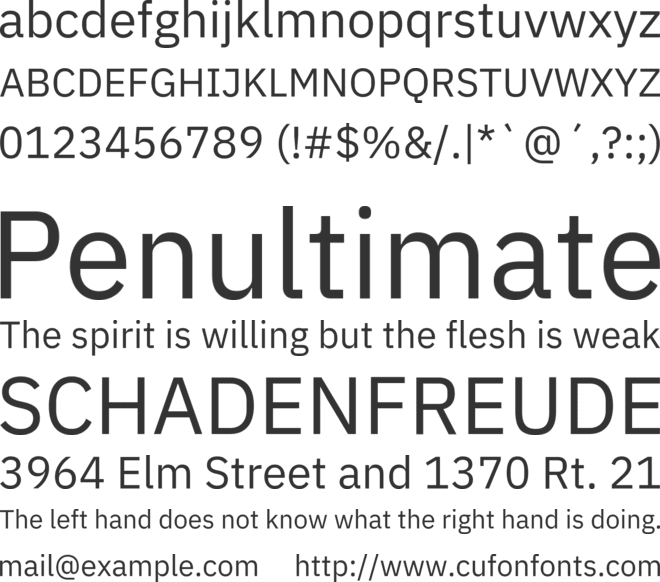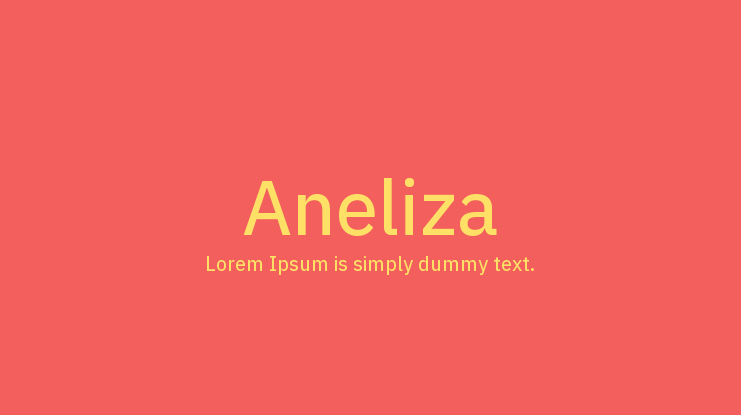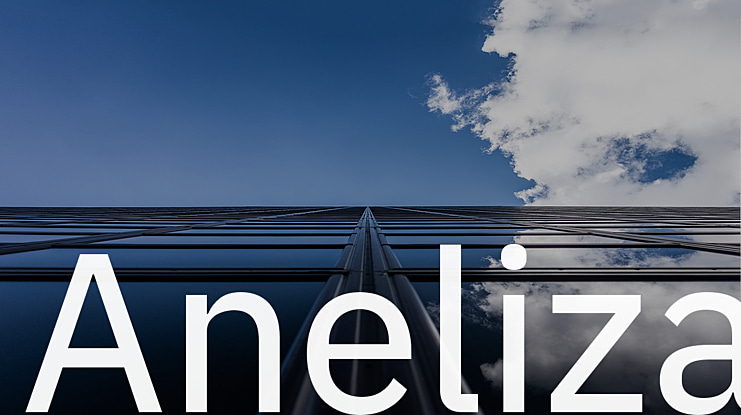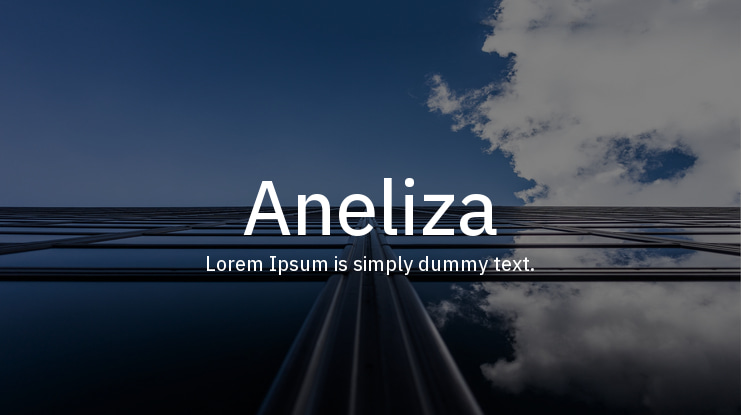
Aneliza Font Family
Mike Abbink, Paul van der Laan, Pieter van Rosmalen
Aneliza is forked from IBM Plex Sans fonts but there are some modifications: single-storey g as default in italics, and more uniform masters in g in romans.